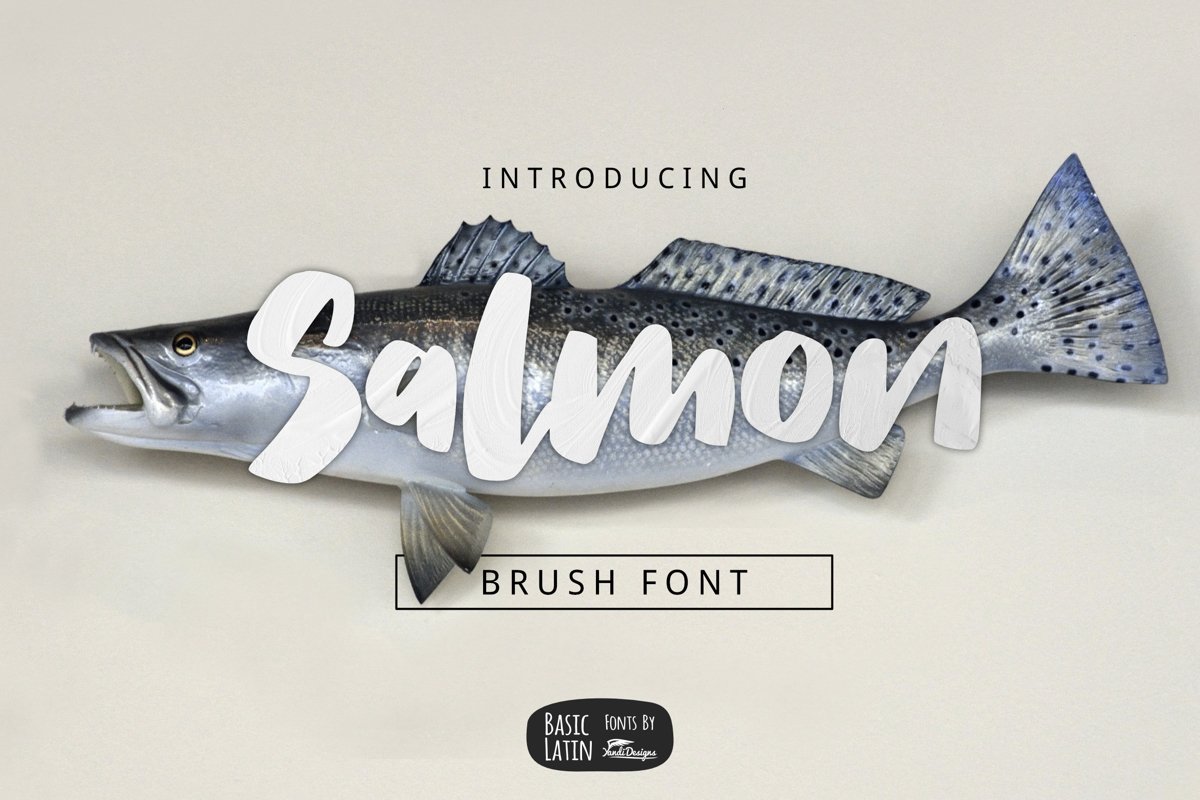
Salmon Brush Font
Salmon brush font is lovely , cute, simple, playful, multipurpose handwritten font , suitable for many project children book, quotes, logo , heading , title etc.
Basic Latin (Standard English character , number, symbol)